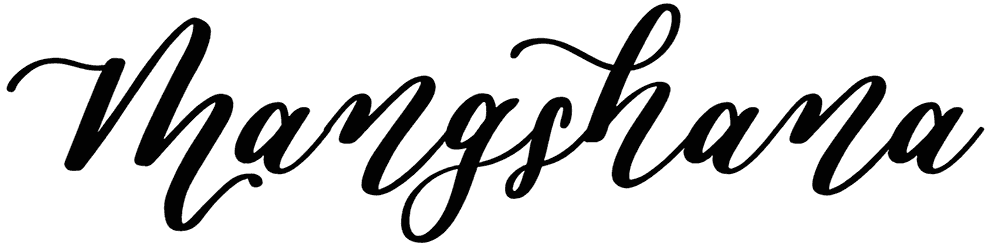
Mangshana Font
With just the right amount of irregularity on the edges, the font can portray the look of a handwritten letter while maintaining the feeling of human touch. Mangshana font is made from super professional lines as if a calligrapher created these characters with a quick hand movement.
This calligraphy font can be used for various purposes, such as wedding cards, personal signatures, business cards, and even girls’ t-shirts, despite being a little bit unreadable.